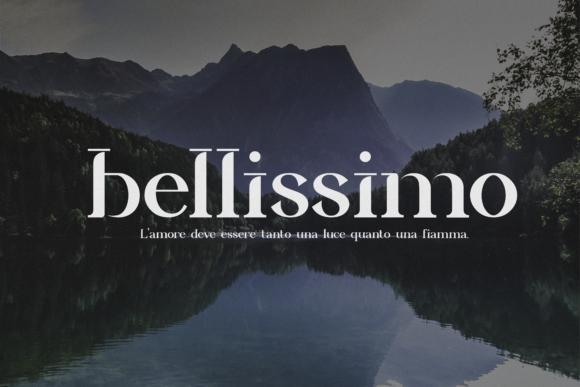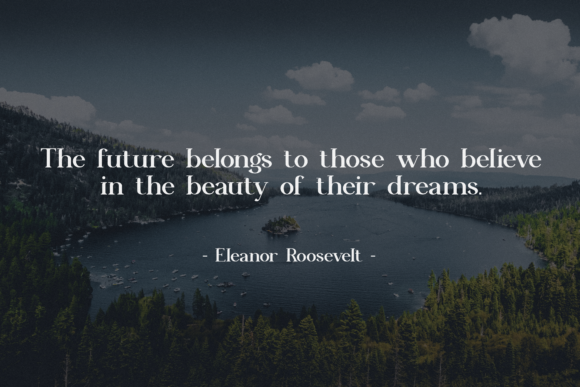
Introduction to Relishia Font
Have you ever found yourself stuck in a creative rut, unable to decide on the perfect font for your next project? The search for that elusive ‘perfect’ font can be a daunting task, especially when you’re working on a high-profile project or a personal milestone like a wedding. But what if I told you that there’s a font that can elevate your design to the next level, without breaking the bank or requiring hours of searching?
Meet Relishia Font, a simple yet stunning typeface that’s perfect for a wide range of creative projects. From posters and wedding invitations to quotes and websites, Relishia Font is a design resource that’s sure to impress. Its clean lines and elegant curves make it an ideal choice for designers looking to add a touch of sophistication to their work. And the best part? You can download it for free, making it an accessible high-quality design asset for designers of all levels.
Whether you’re working on a commercial project or a personal creative endeavor, Relishia Font is a valuable addition to your design toolkit. Its versatility and high-quality design make it a must-have resource for anyone looking to take their design to the next level.
Key Features of Relishia Font
- High-quality design: Relishia Font is crafted with precision and attention to detail, making it a valuable resource for creative projects.
- Transparent background: This font features a transparent background, allowing for seamless integration into various design elements.
- High-resolution design: Relishia Font is designed at a high resolution, ensuring crisp and clear text rendering, even at large sizes.
- Unique characteristics: This font features a distinctive and modern design aesthetic, making it an excellent choice for creative projects that require a touch of sophistication.
- Perfect for digital use: With its transparent background and high-quality design, Relishia Font is ideal for use in digital applications, including websites, social media, and more.
Honest Review: Relishia Font
I recently had the chance to work with the Relishia Font on a creative project, and I was impressed by its high quality. This font is a great addition to any design resource, offering a unique and elegant feel that can elevate your work.
One of the standout features of the Relishia Font is its transparent background, making it easy to customize and integrate into any design. The font is also available for free download, which is a huge plus for designers on a budget.
- ✨ Unique and elegant feel that sets it apart from other fonts
- ✨ Transparent background for easy customization
- ⚠️ Limited character set, which may not be suitable for complex text
- ⚠️ May not be compatible with all operating systems or software
Overall, I’m impressed with the Relishia Font and would definitely recommend it as a design resource. With its high-quality design and transparent background, it’s a great choice for designers looking to elevate their work.
The Relishia Font is a high-quality, free design resource ideal for creative projects that require a touch of elegance and sophistication. Its transparent background makes it easy to use in various design applications.
The Relishia Font is ideal for various design projects, including:
- Business cards and marketing materials
- Branding and logo design
- Graphic design and visual arts